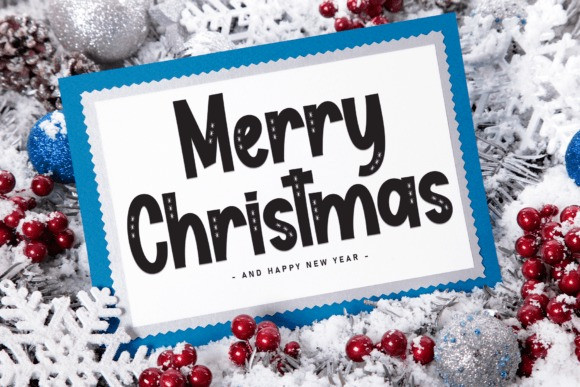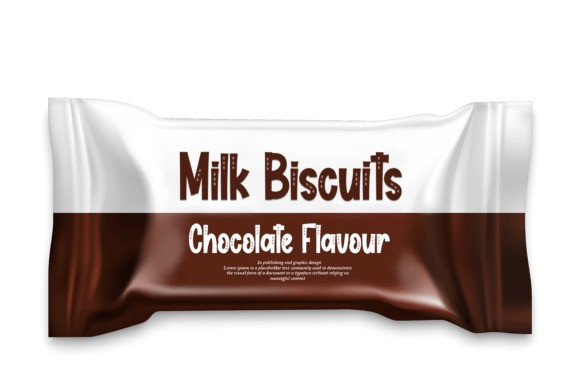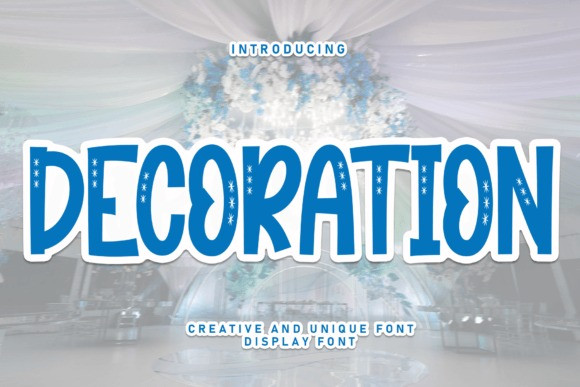
Decoration Display Font
Decoration Display Font is a cute and quirky display font. It will add an incredibly joyful touch to your designs. Add this beautiful display font to each of your creative ideas and notice how it makes them stand out!